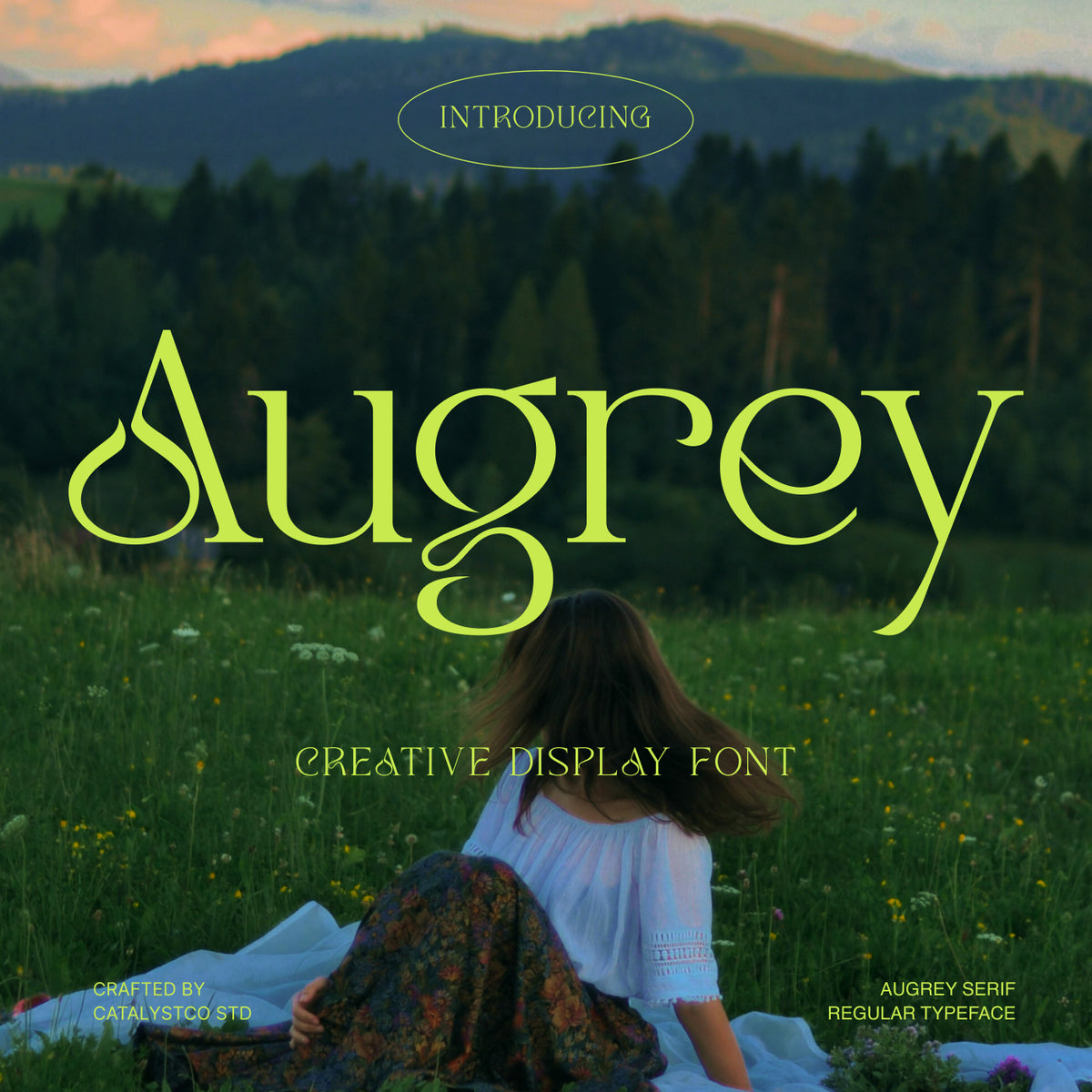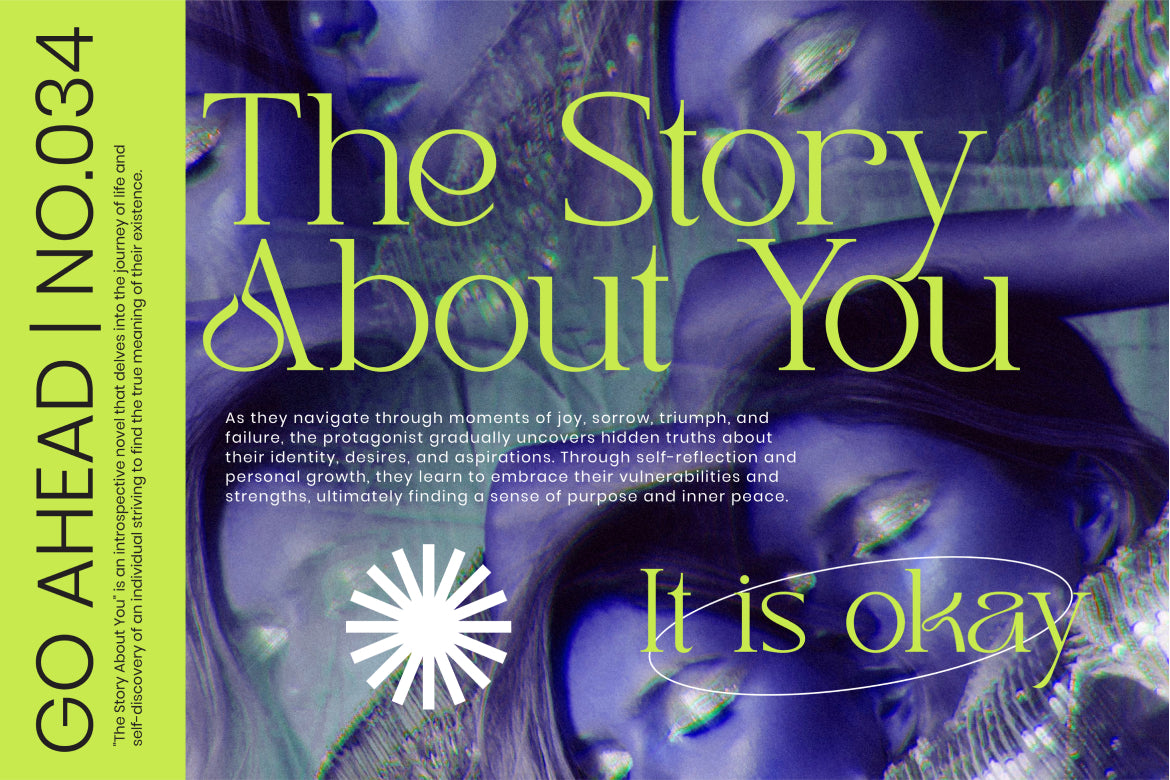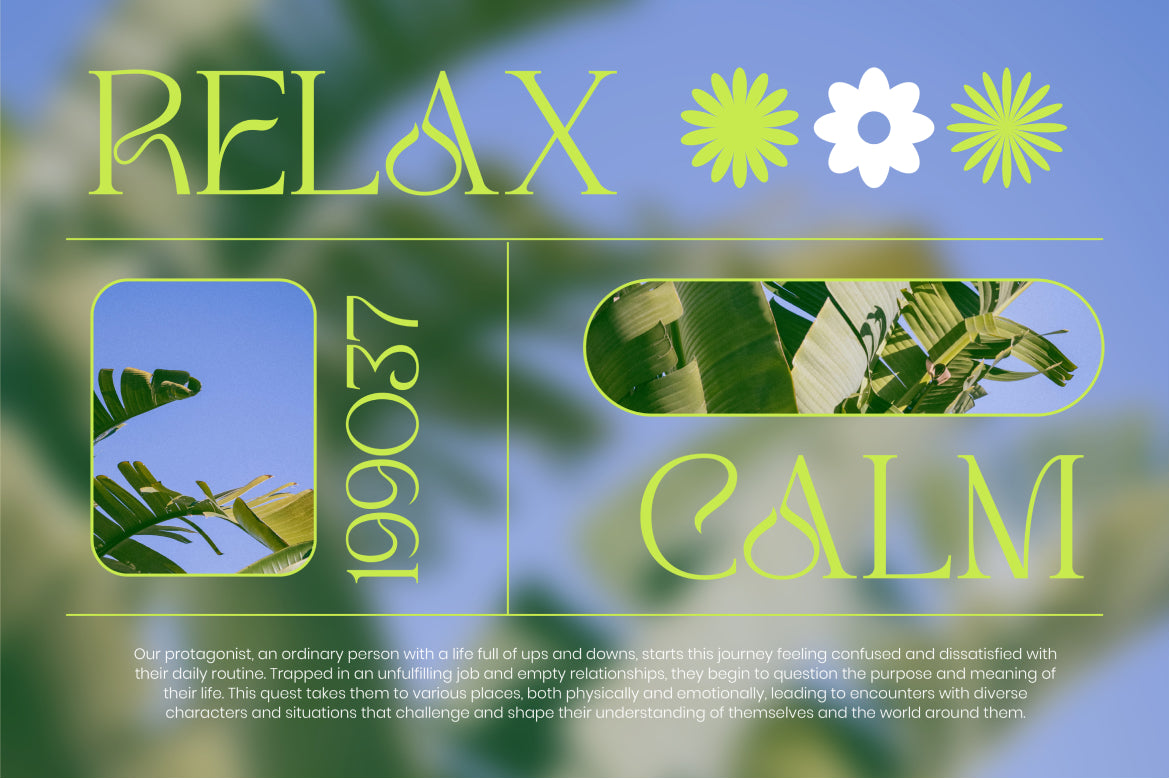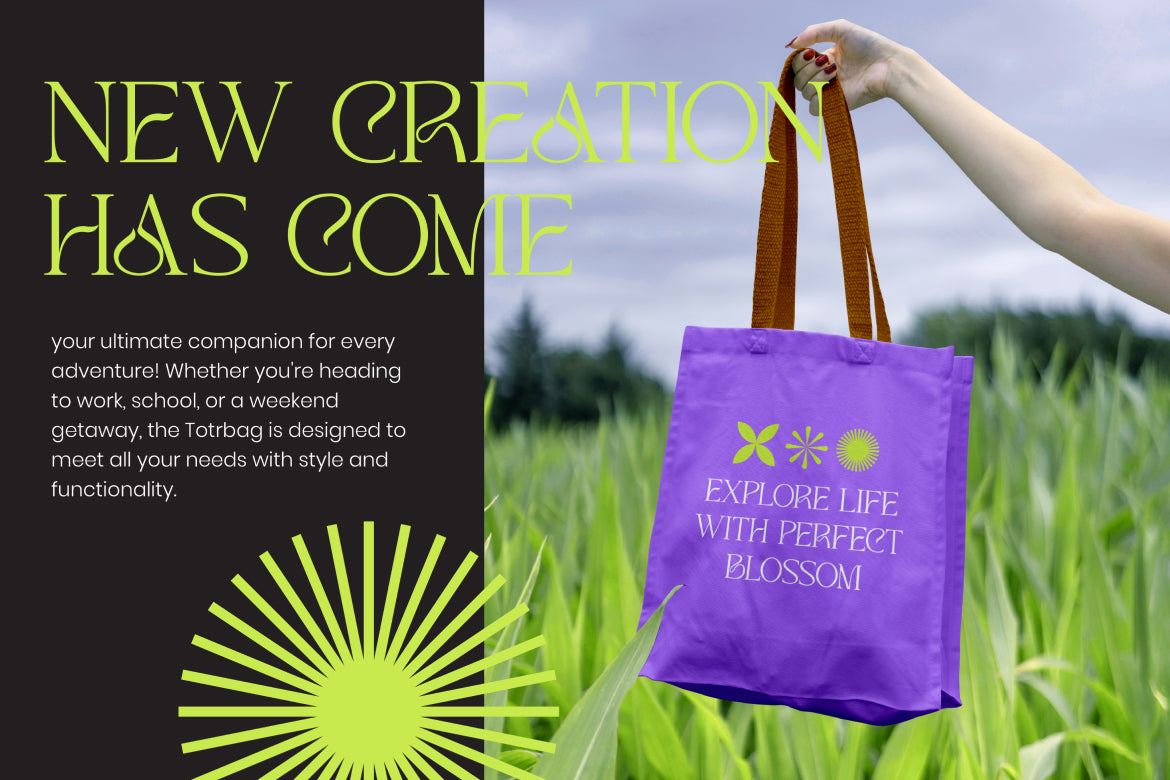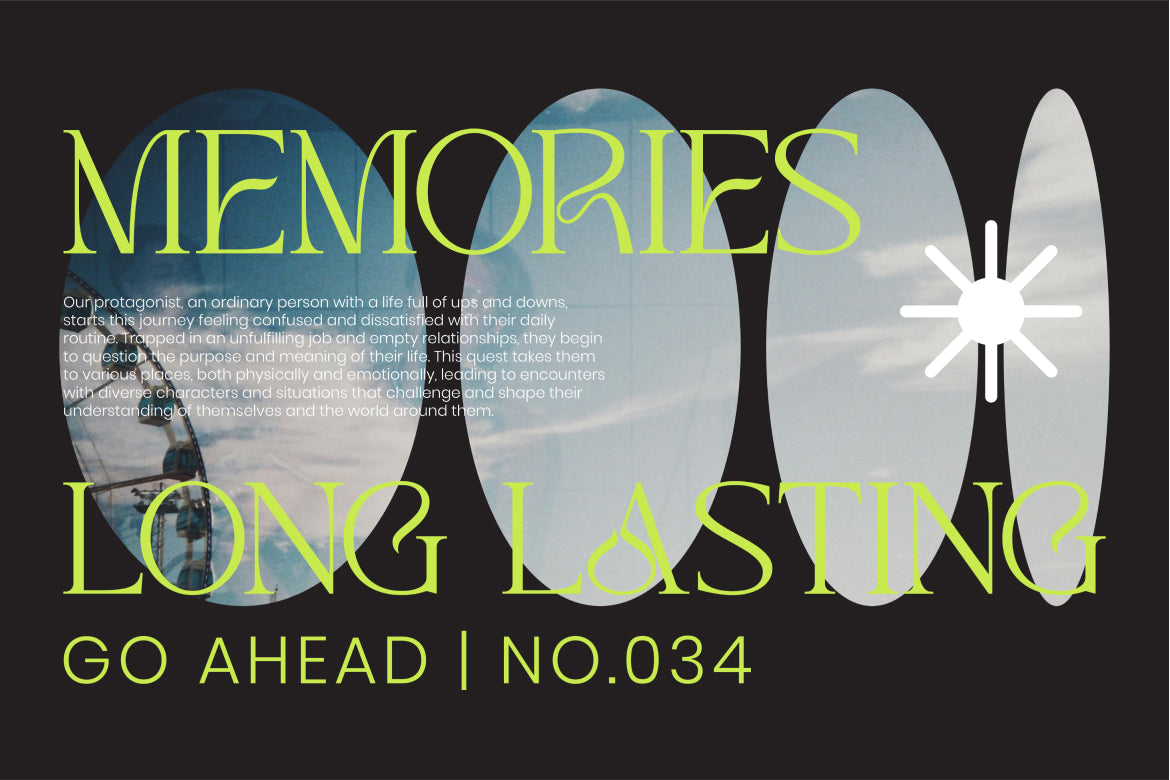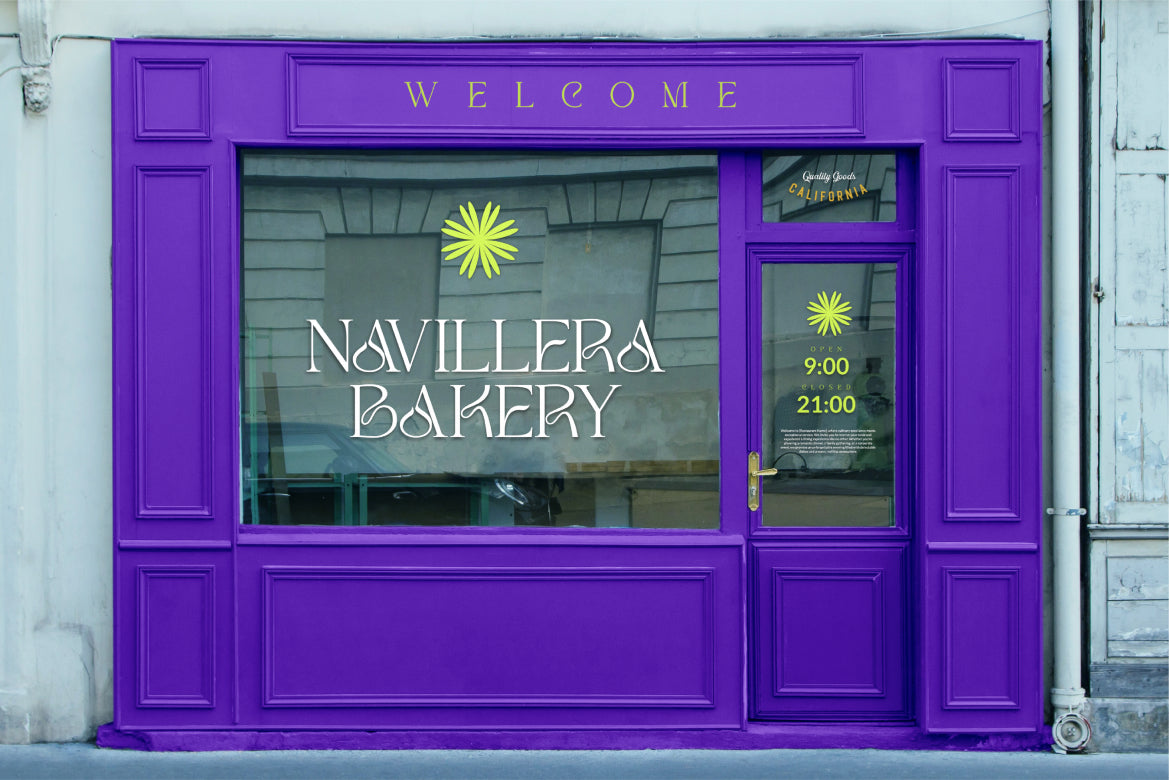
Augrey Creative Display Font
Augrey Creative Display Font is a creative serif display font with a unique mix of feminine charm and vintage elegance. Designed with smooth curves and artistic details, Augrey gives off a whimsical and graceful vibe, making it perfect for fashion branding, editorial headlines, and modern classic projects. Whether you're designing logos, product packaging, or invitations, this font elevates your layout with a sense of style and sophistication. Augrey blends both retro character and contemporary elegance, ideal for brands seeking a bold yet graceful typeface.
Augrey Creative Display Font is a serif display typeface featuring uppercase and lowercase letters, ligatures, alternates, numerals, and punctuation. It is available in TTF, OTF, and WOFF formats.